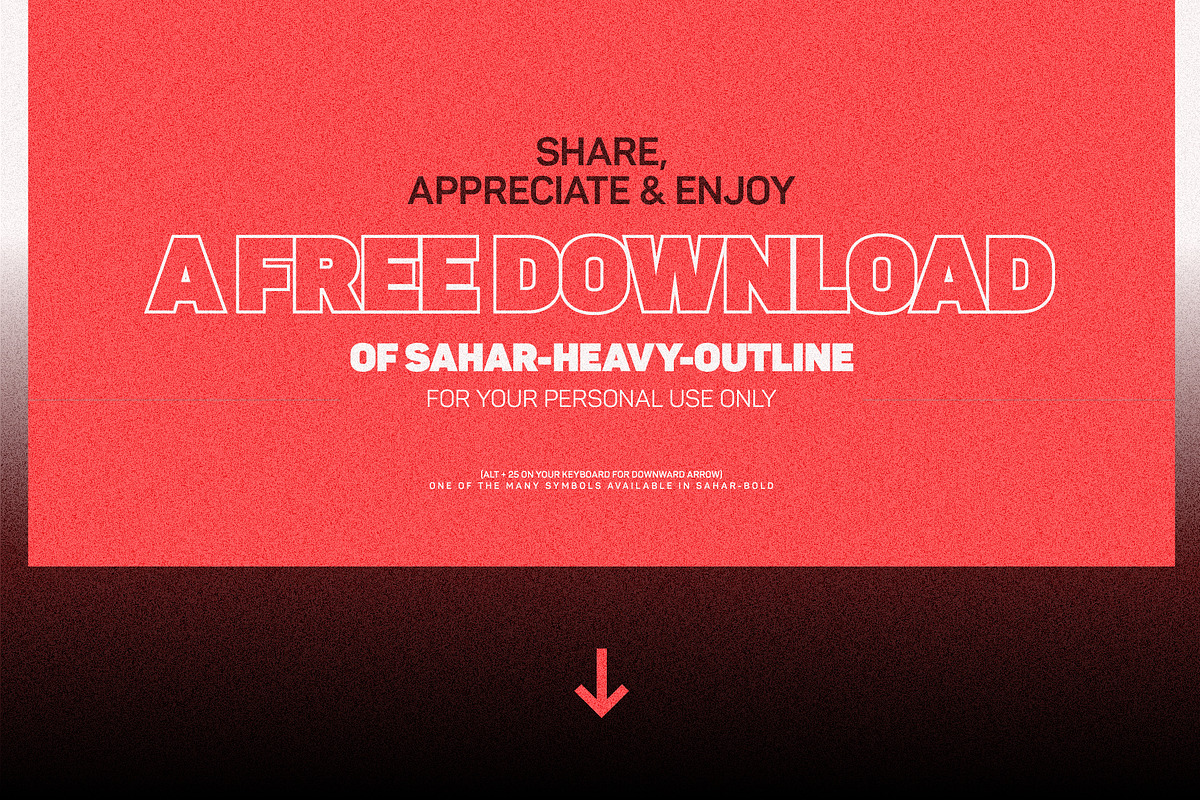
Sahar Bold (Roman & Italic)
This is the fourth weight release of Sahar font family "Sahar-Bold"
A charming modern sans serif font family inspired by love, passion and balance. Named after my better half. The name Sahar literally translates charm - she is every bit of the word
- Upper & lowercase letters, numbers, marks and symbols
- Extensive language support - over 500 glyphs of Latin, Cyrillic and Greek script ( each weight)